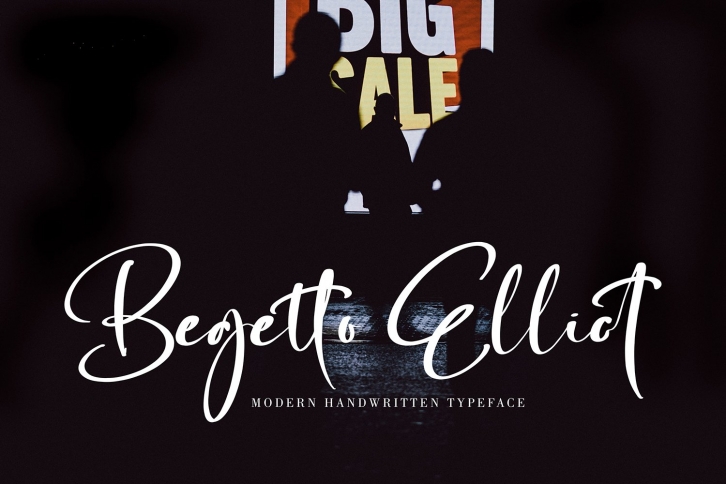
Begetto Elliot is a great font that was designed by Pineungtype. Imagine the amount of combinations you can create using this font! The archive is 9.4 MB and it was released on October 17, 2021. Begetto Elliot looks beautiful on wedding invitations, greeting cards, logos, posters, labels, t-shirt designs, logos, business cards and is perfect for use in ink or watercolor works, fashion, magazines, packaging and food menus, children's books and more!